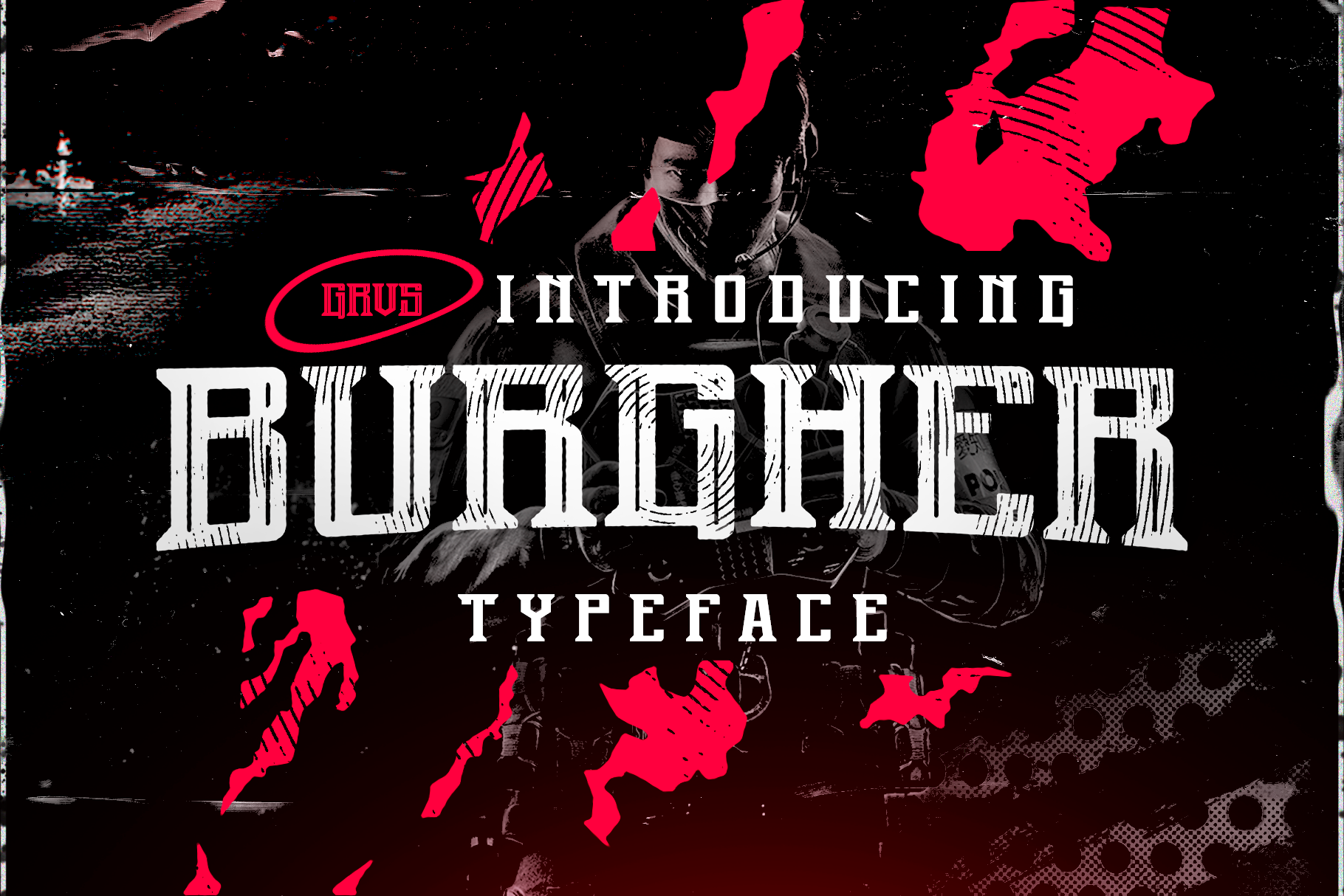
GRVS BURGHER FONT
GRVS Burgher font is our new item that suitable for your team logo, or community logo.
Great for Logo, Sticker, Jersey, Invitation Card, Brochure, etc.